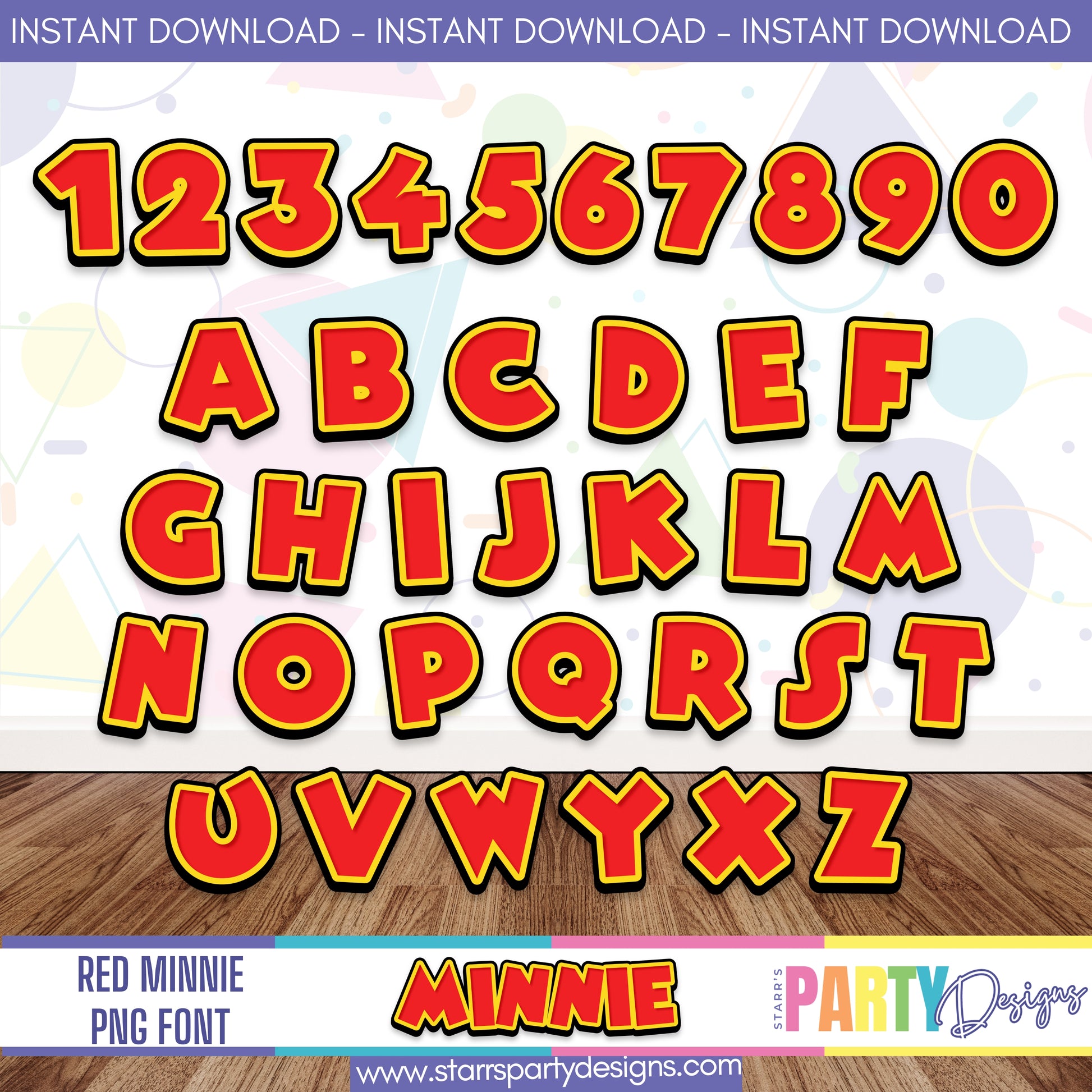
MINNIE MOUSE RED PNG FONT
Instant downloadable png font images are inspired by MINNIE AND MICKEY MOUSE.
This set includes full alphabet high quality PNG font images. Includes CAPS alphabet letters, numbers and symbols.